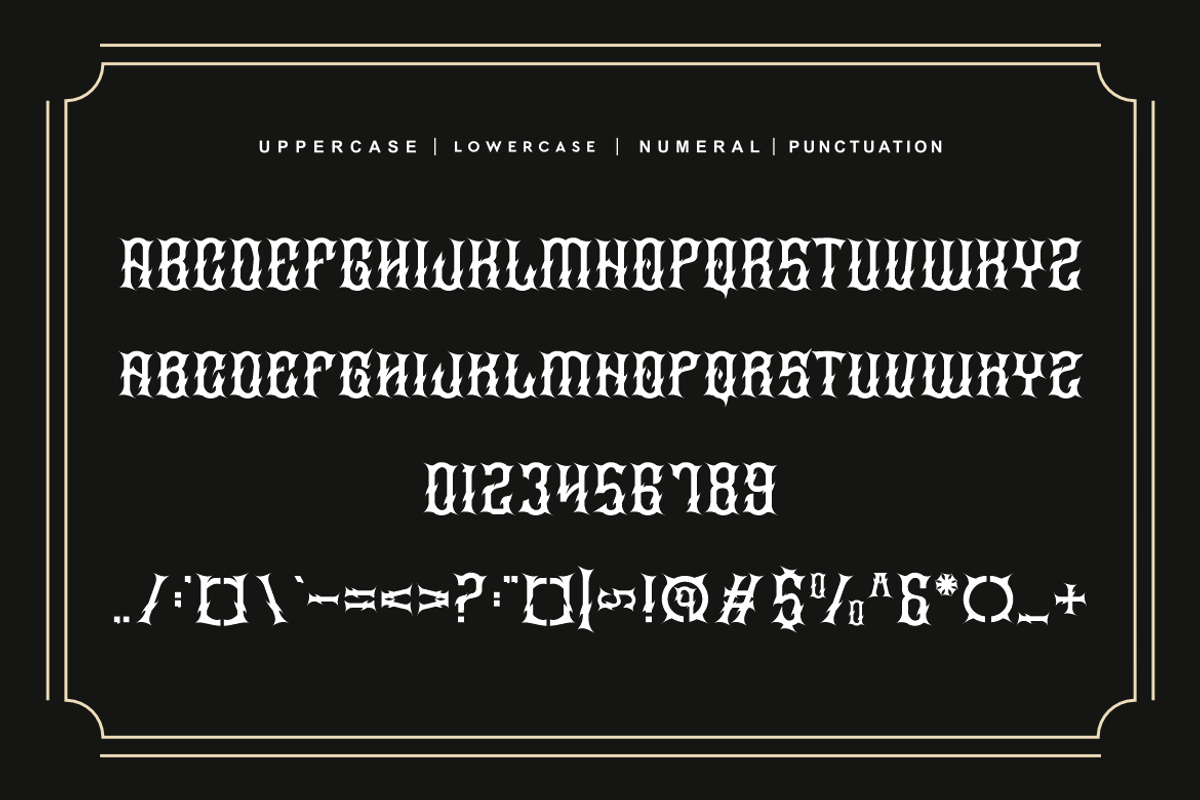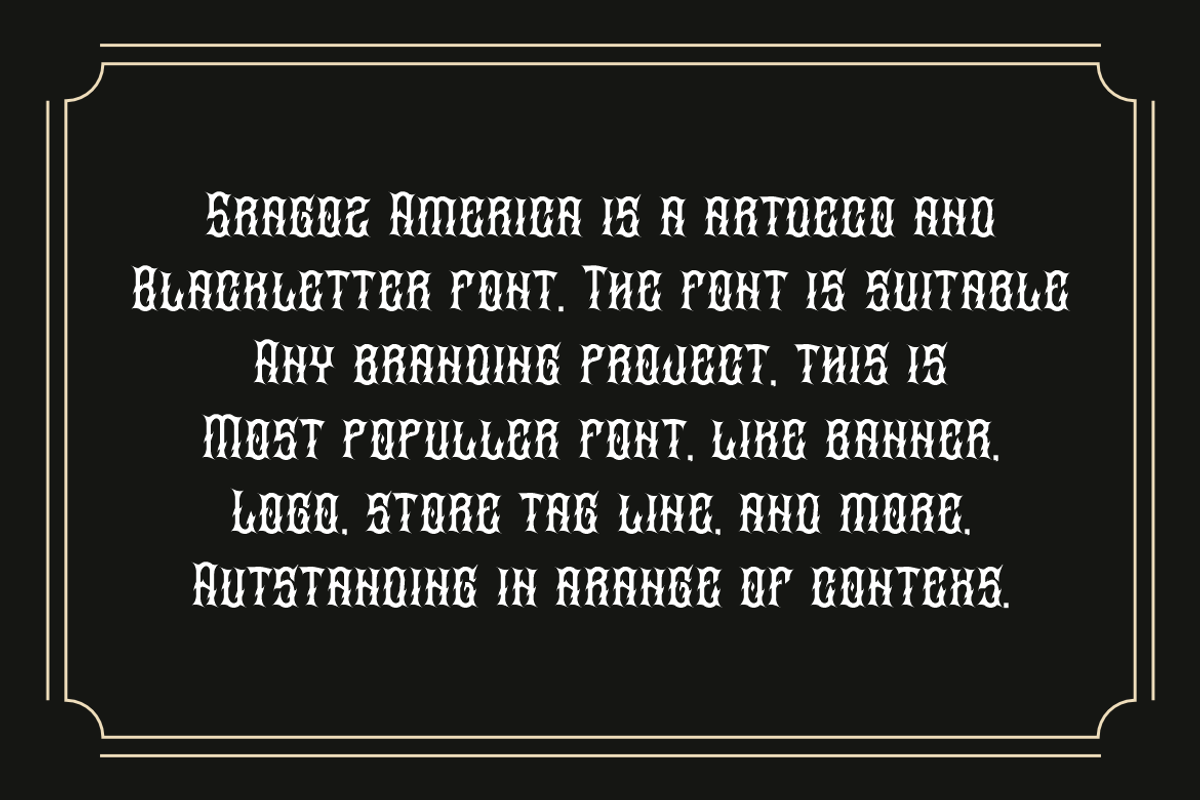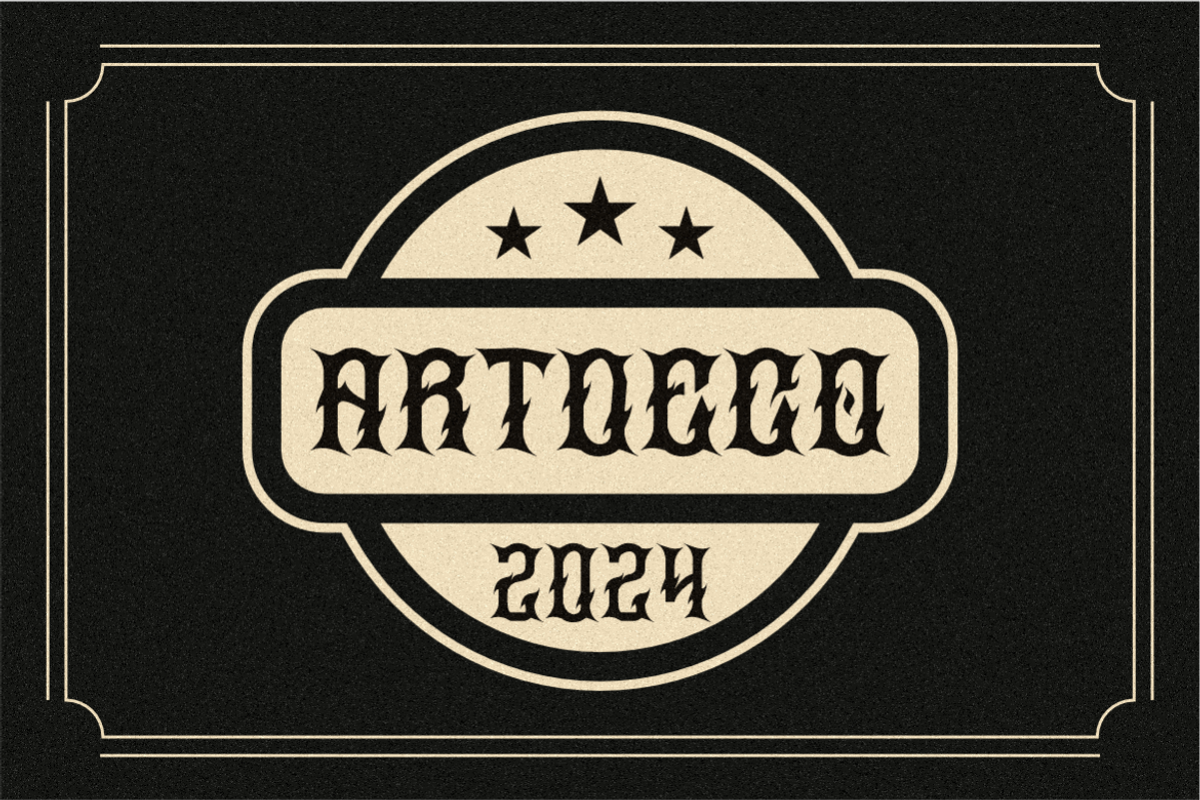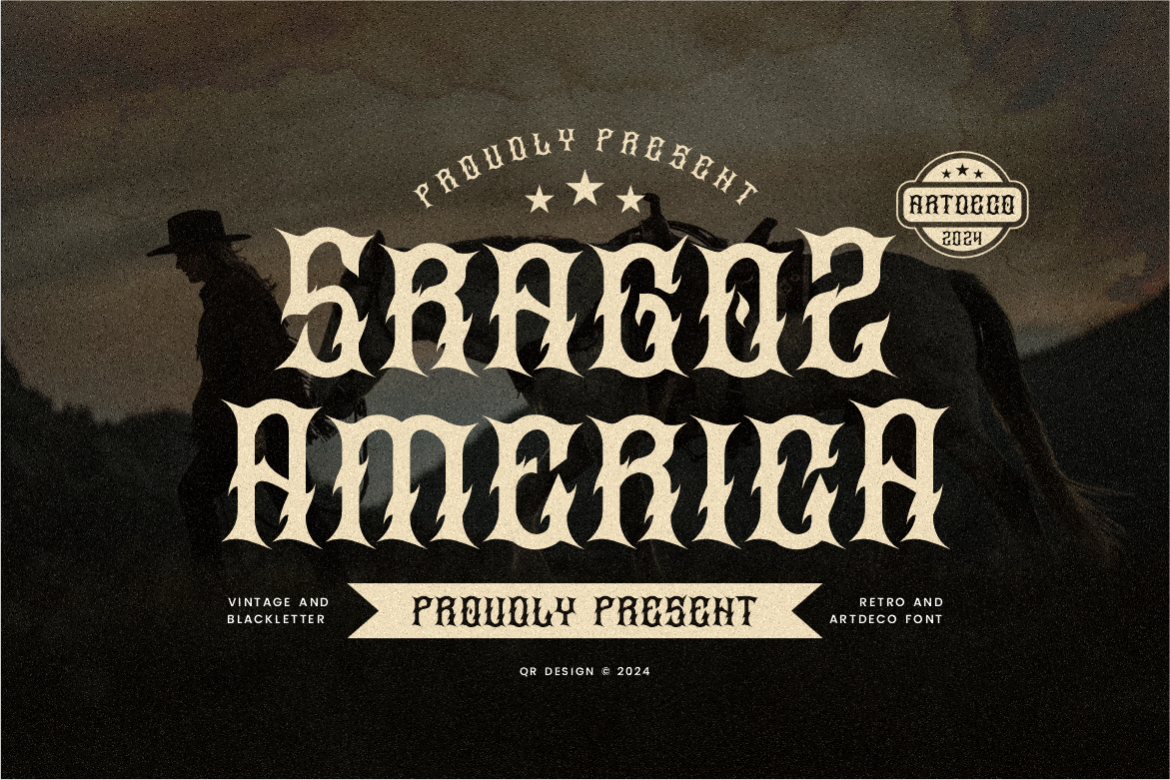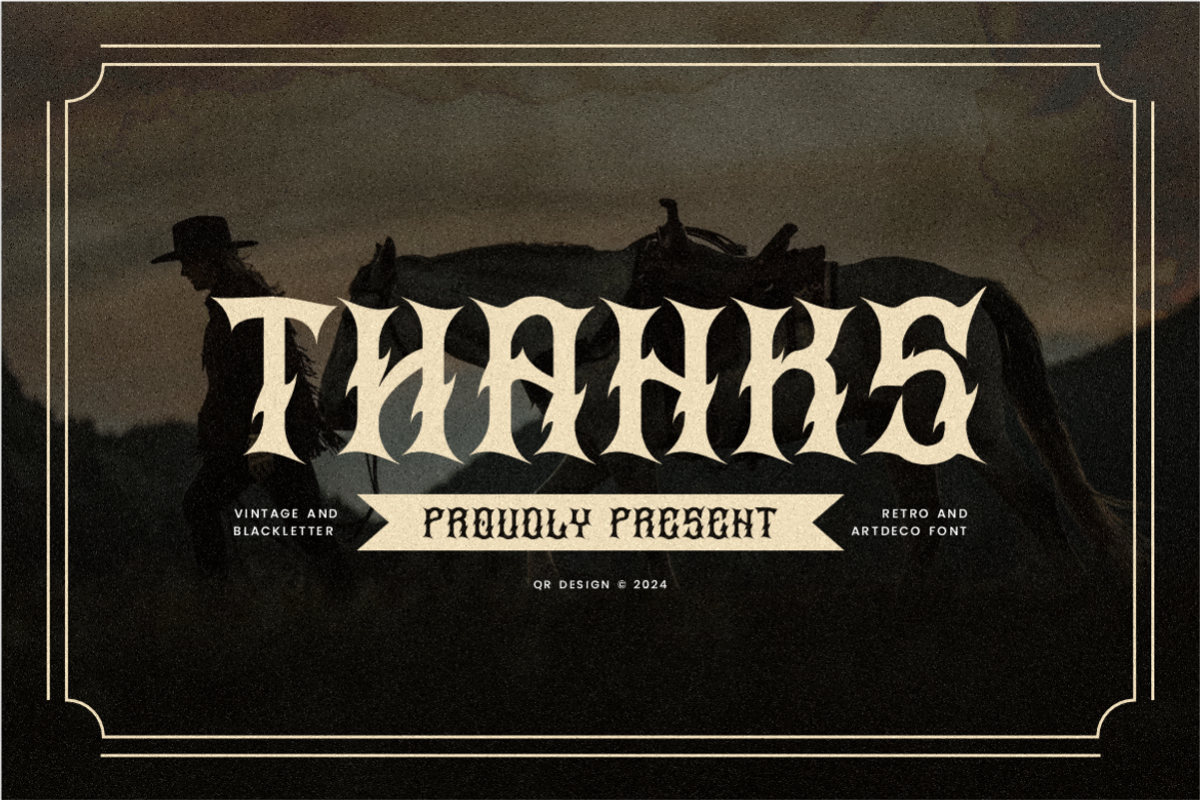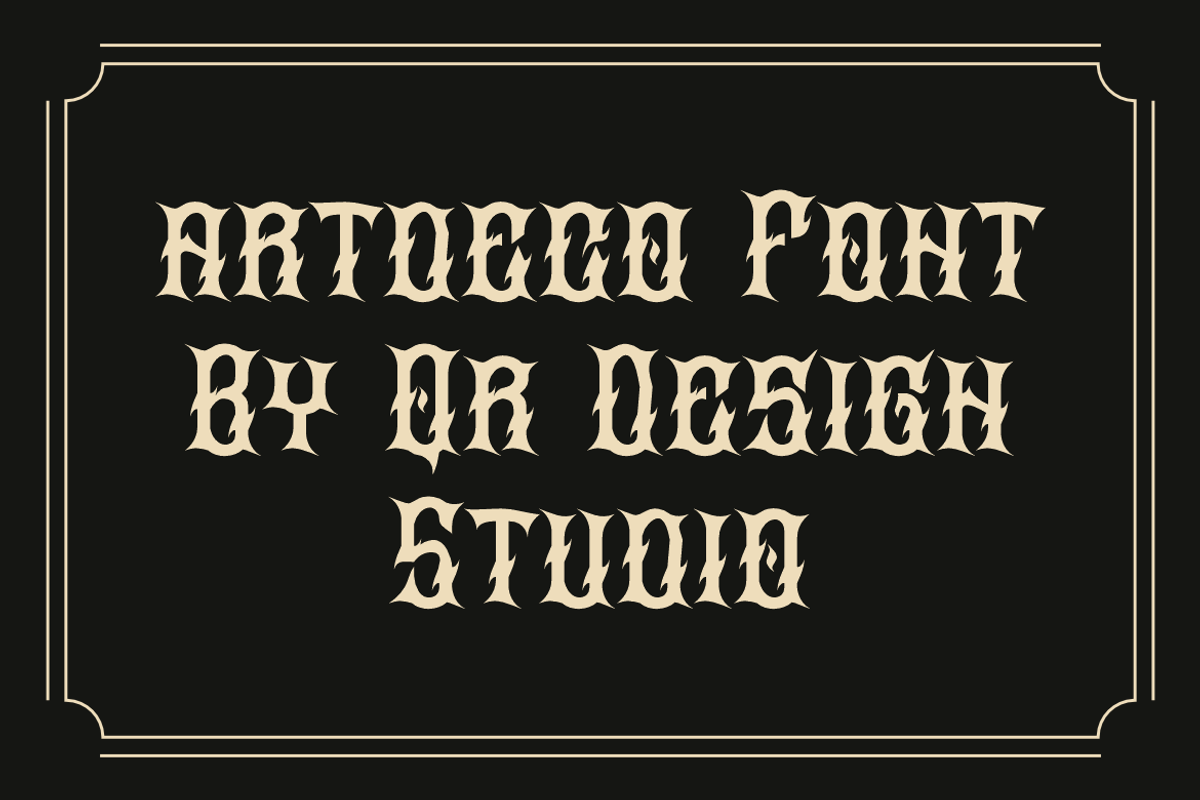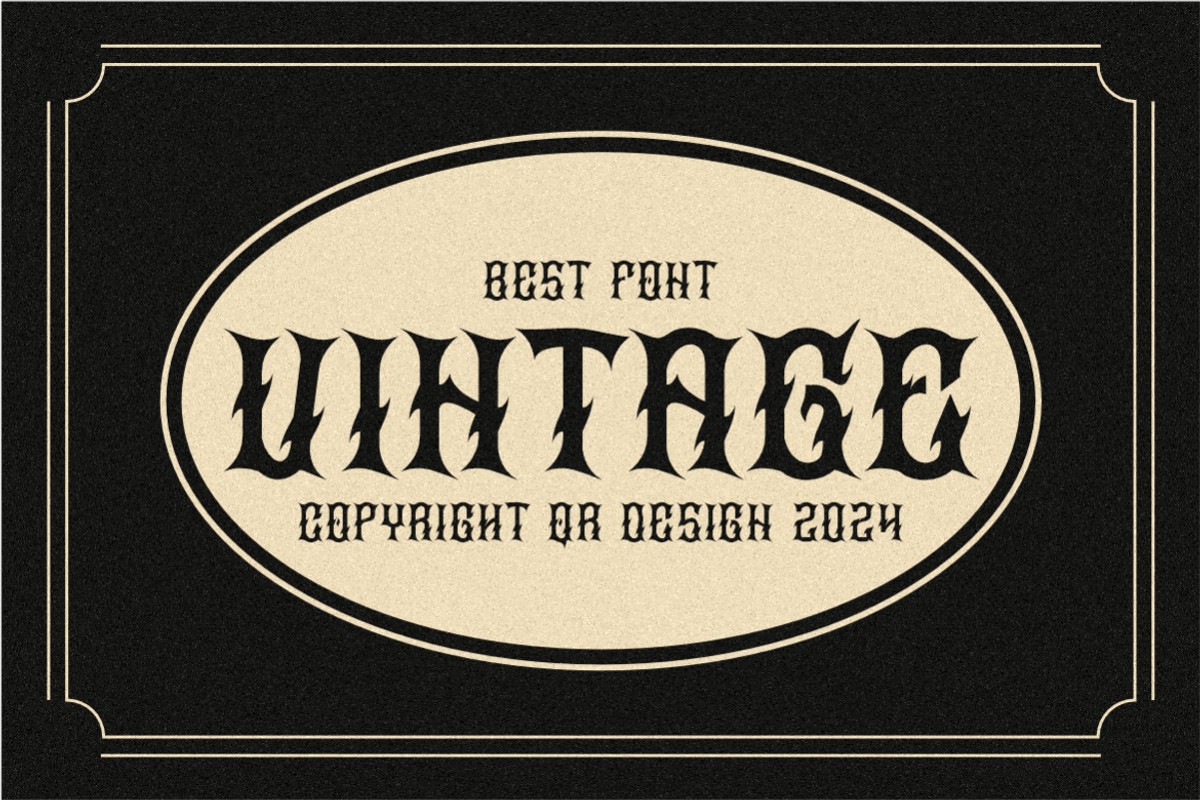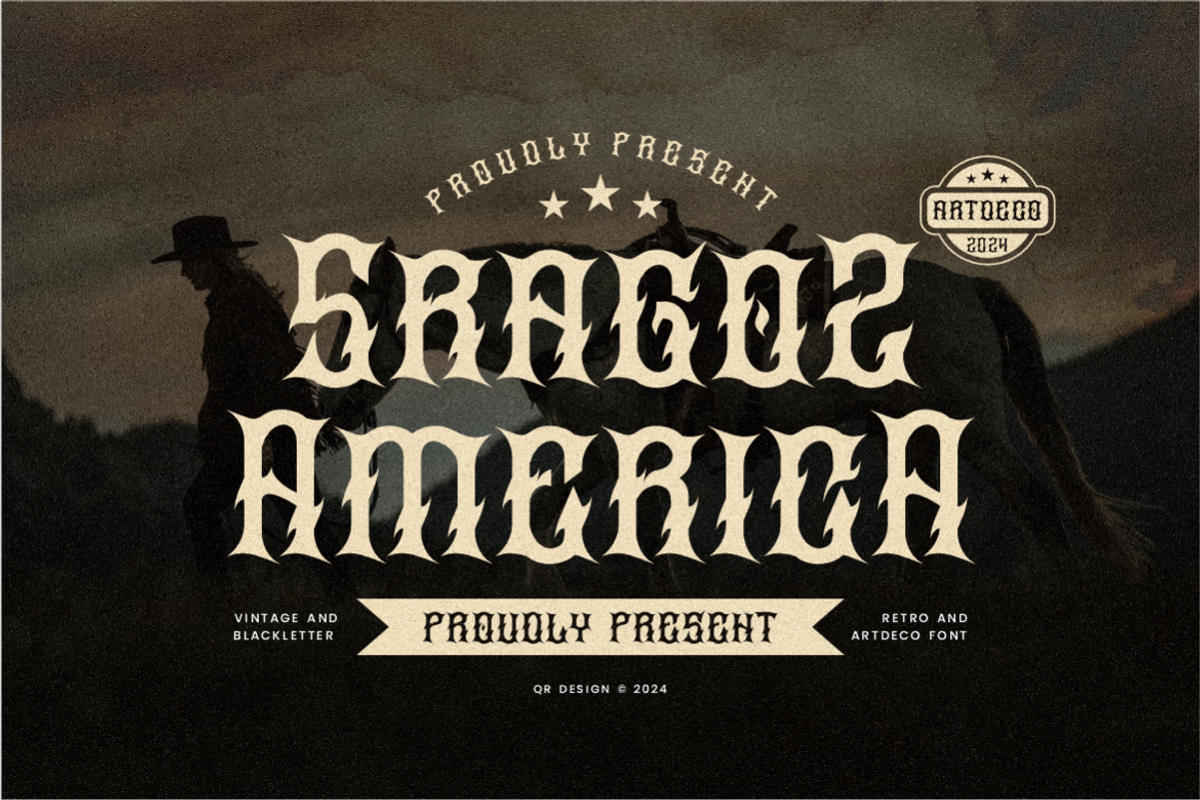
Sragoz America - Western Font
Sragoz America Font is a artdeco and authentic display font. The font is suitable for any branding project like poster, logo, sport, and many more. Outstanding in a wide range of contexts.